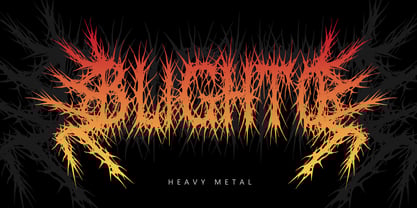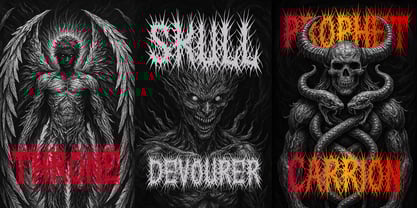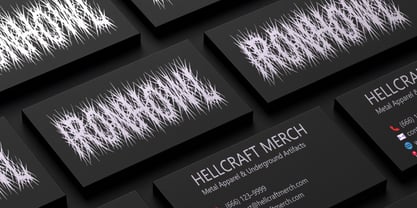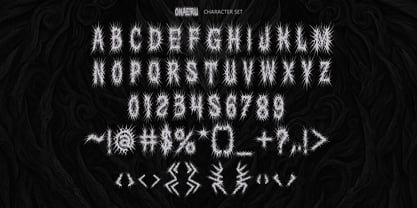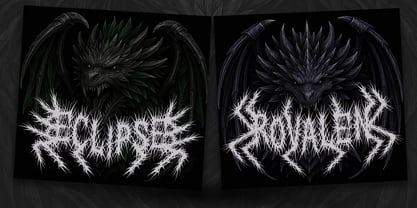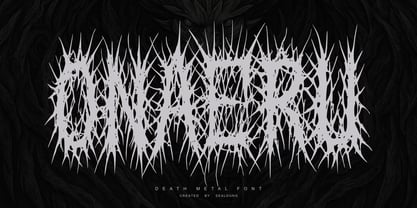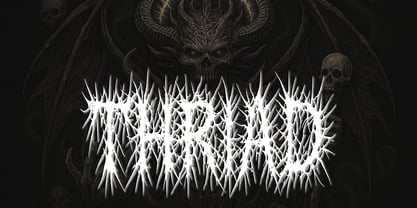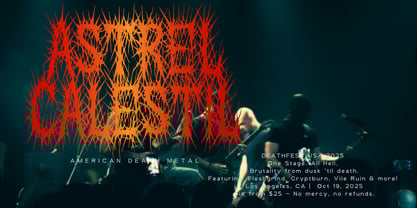
Onaeru
by Sealoung
Onaeru Font is a fierce and heavy typeface crafted for creating impactful logos, especially for underground bands and extreme music scenes. Its sharp, aggressive letterforms give your designs a raw, intense atmosphere suitable for genres like death metal and black metal. It comes with a complete uppercase character set, alternates, along with numbers and punctuation to support a wide range of uses.
Features:
• All uppercase letters
• Numbers & punctuation
• Stylistic alternates
• Multilingual Support